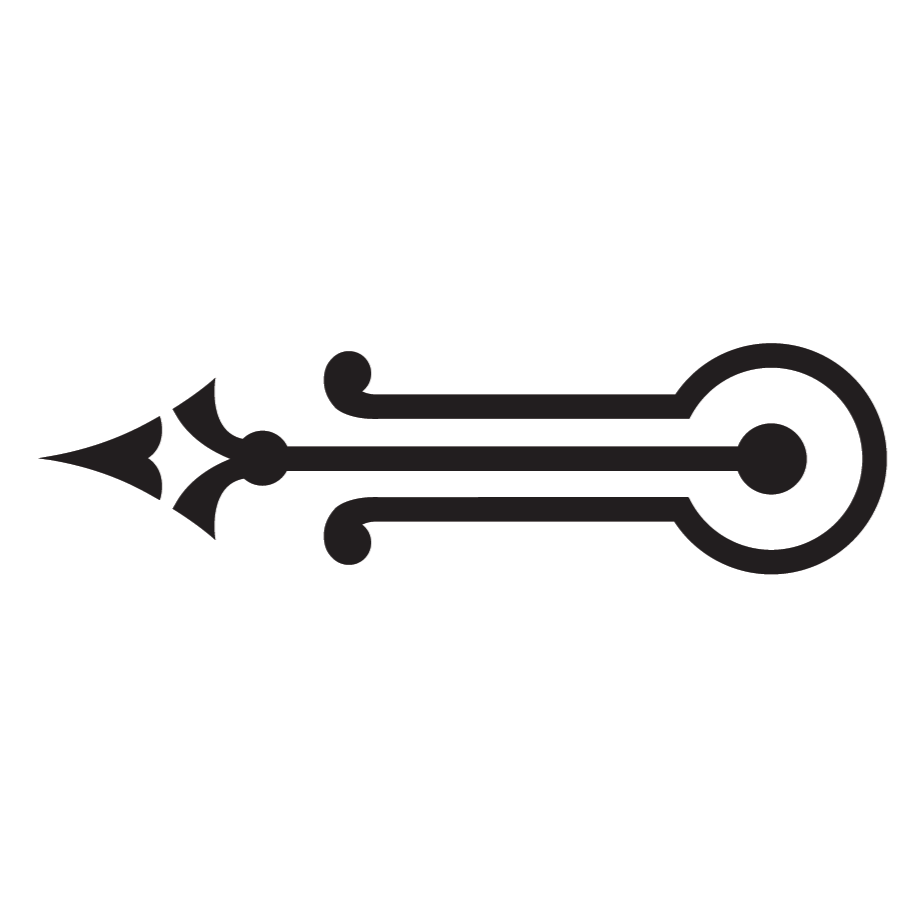
These line ornaments have a long history in wood type, having been produced by several historic wood type manufacturers.
We found our original examples at the Platen Press Museum, in the collection of our late friend Paul Aken. Naming them Paul’s Pointers seemed like the right way to remember where they came from.